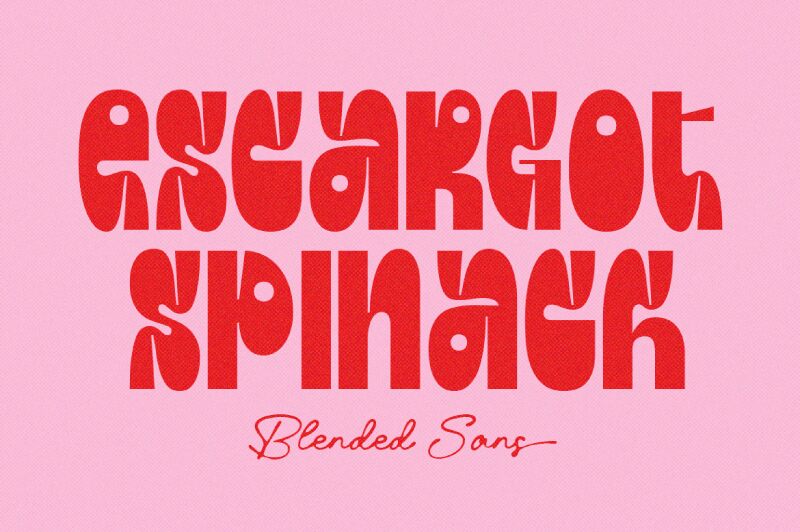
Escargot Spinach font is a groovy typeface designed by Prioritype Co. This font perfectly embodies the whimsical and decorative spirit of retro design, making it an exceptional artistic choice for your graphic projects. Smooth, flowing strokes are integrated with geometric figures that both contrast and complement each other simultaneously.
Explore its timeless characteristics by using Escargot Spinach in branding and identity projects for businesses, creating logos, or designing large headlines for posters and placards. The font’s ability to fit modern applications can further apply to package designs, even greeting cards or book covers.